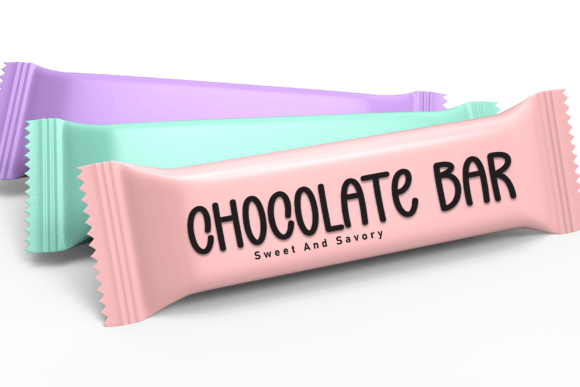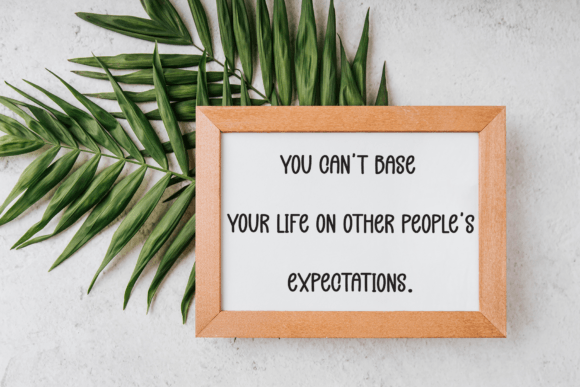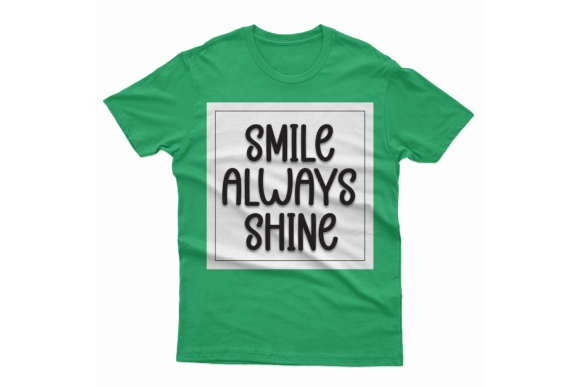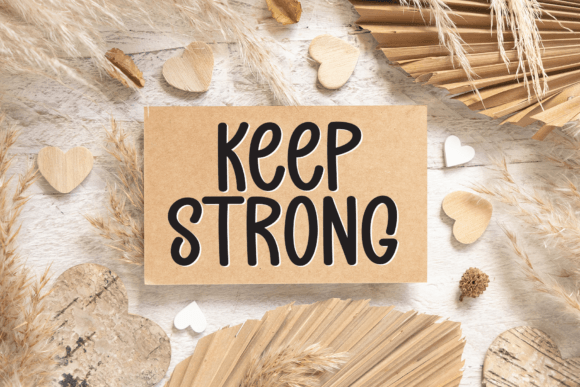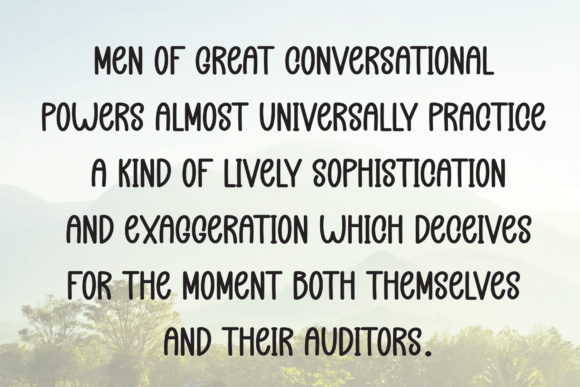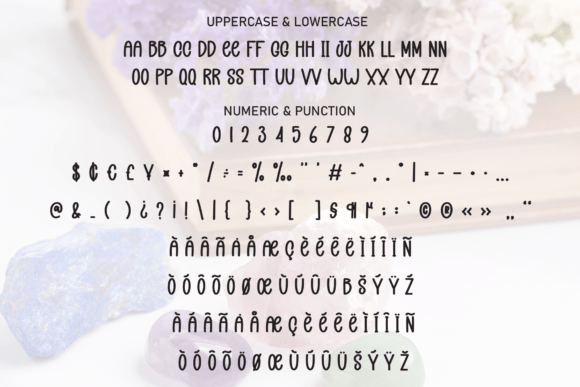
Introduction to Rainbow Moonstone Font
Rainbow Moonstone is a casual handwritten font that brings a relaxed and playful vibe to any project.
Its bold, approachable letterforms make it perfect for headlines, posters, and branding The font’s easygoing style effortlessly captures a sense of fun and spontaneity, enhancing any creative work.